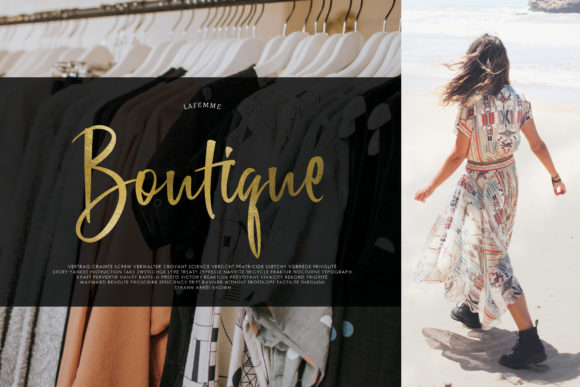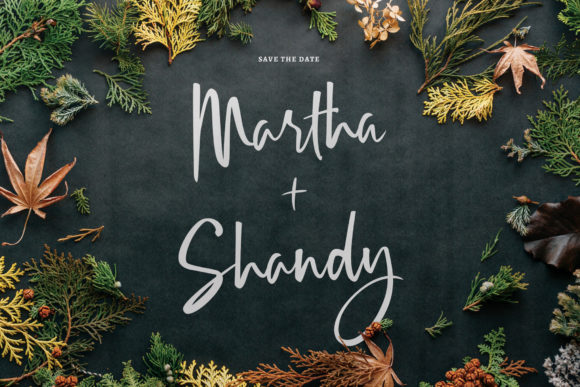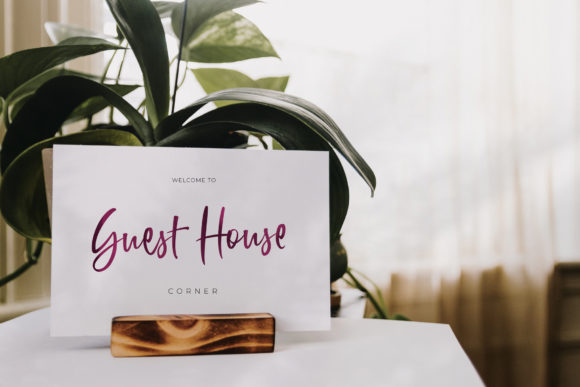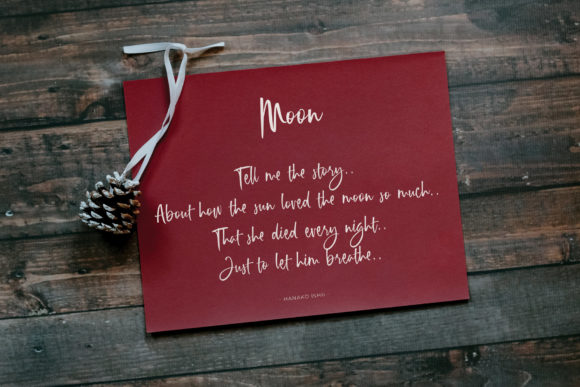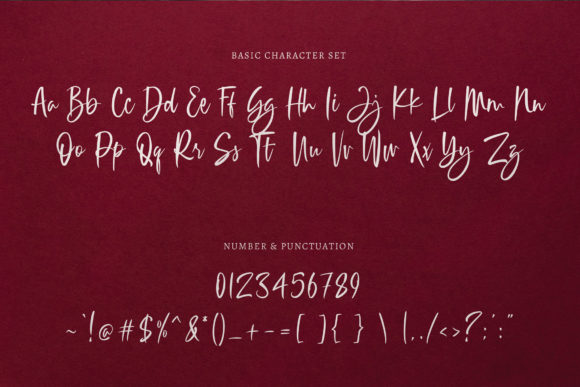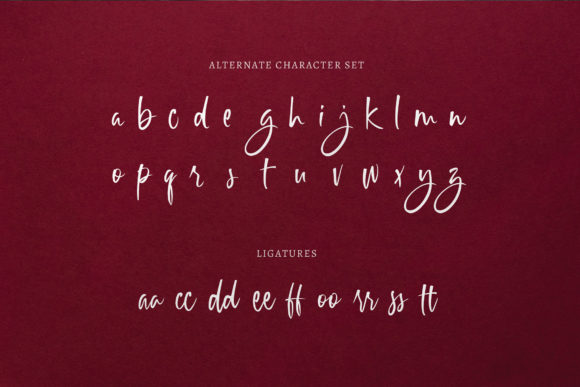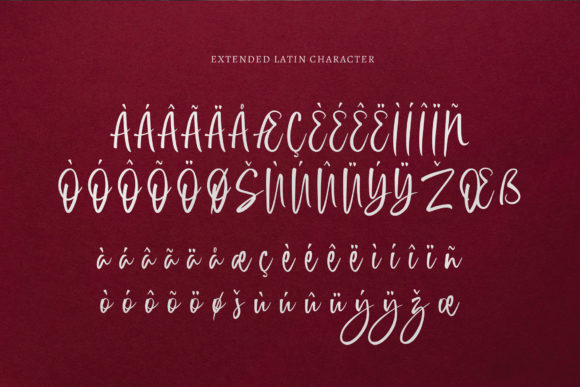
Maressy Font
About Maressy Font
Maressy is a beautiful light handwritten font with a unique feel and a stunning impact. It will add a luxury spark to any design project that you wish to create!